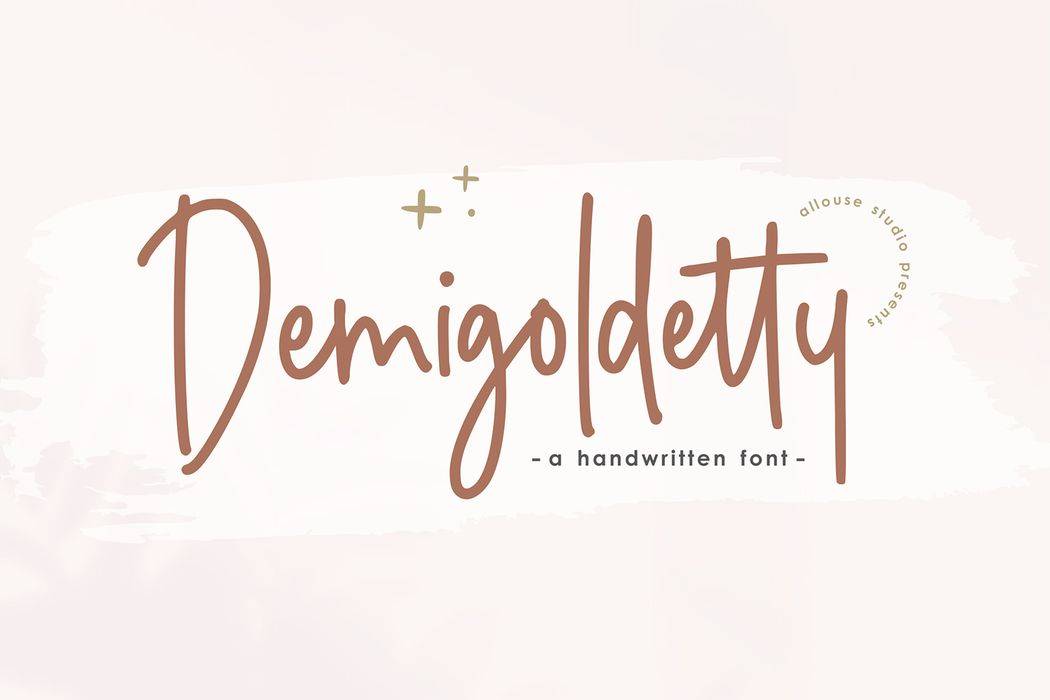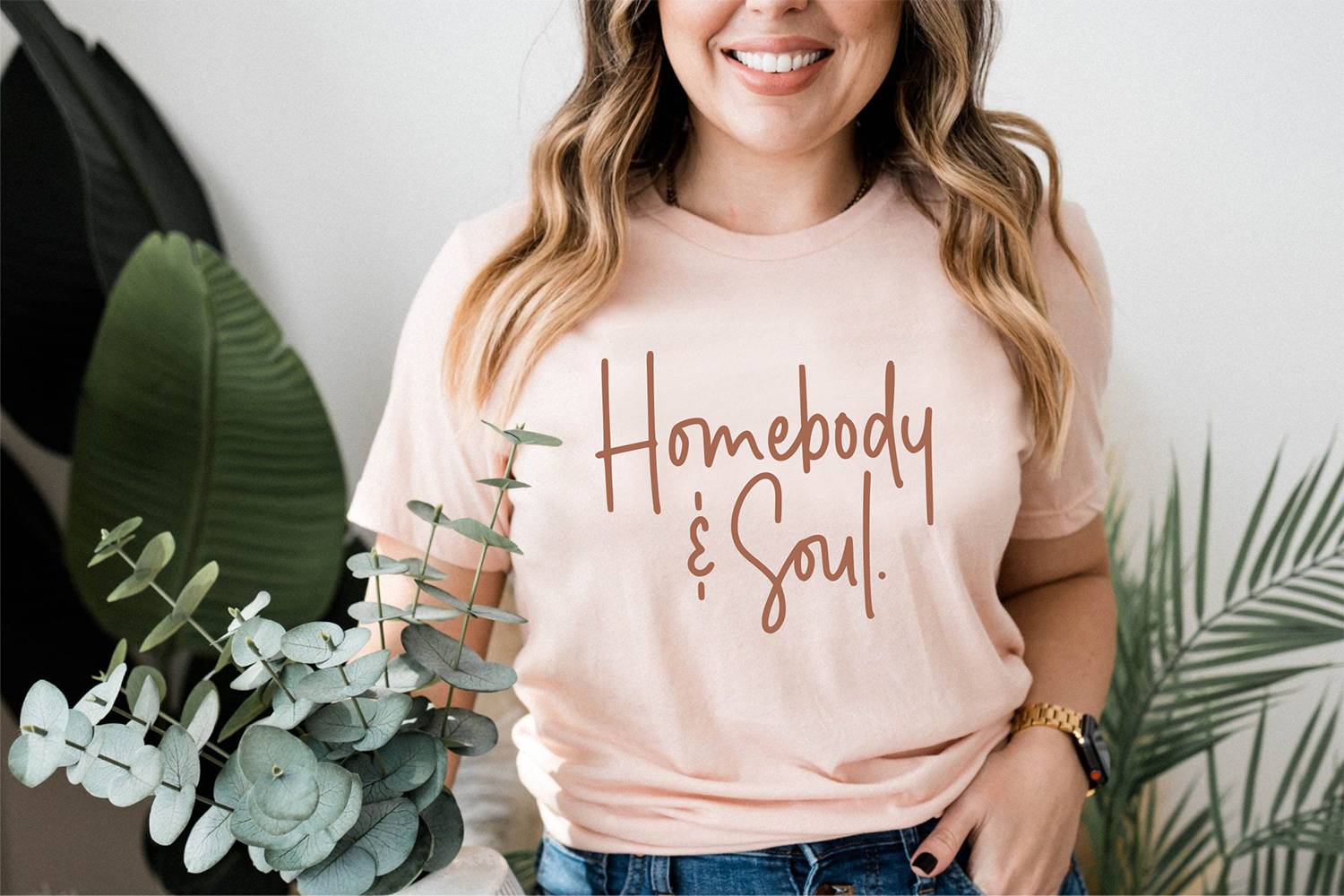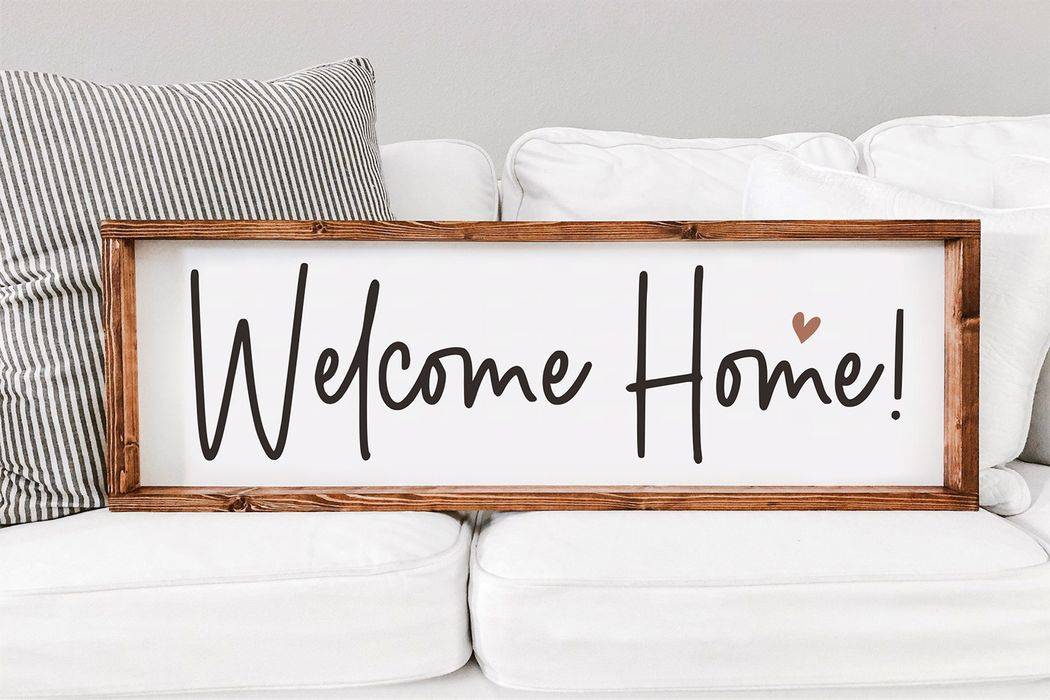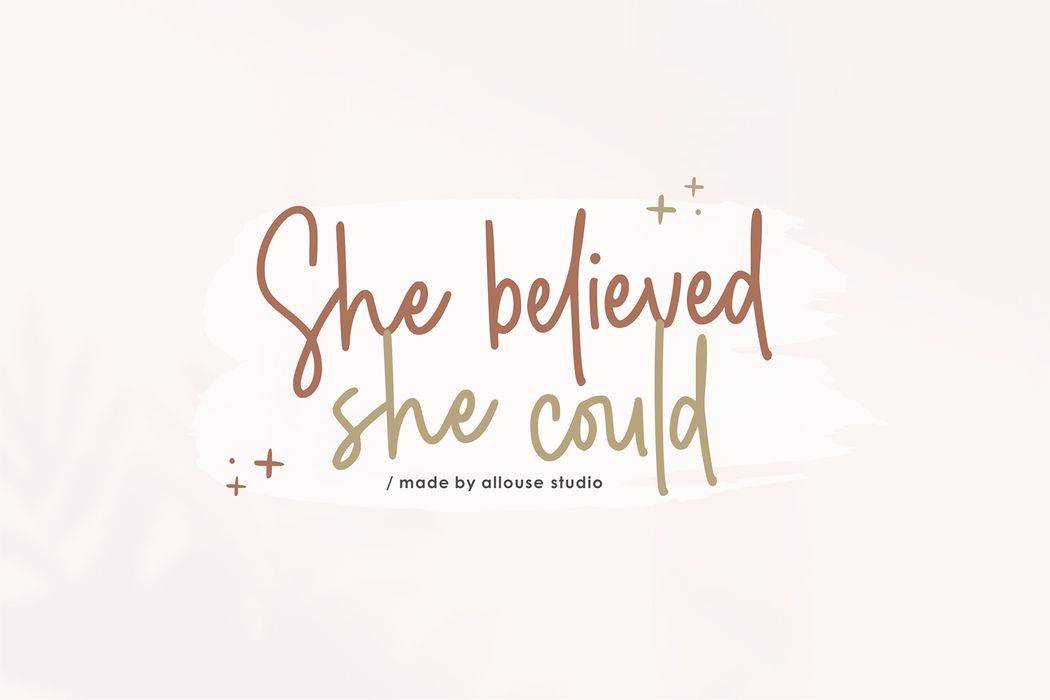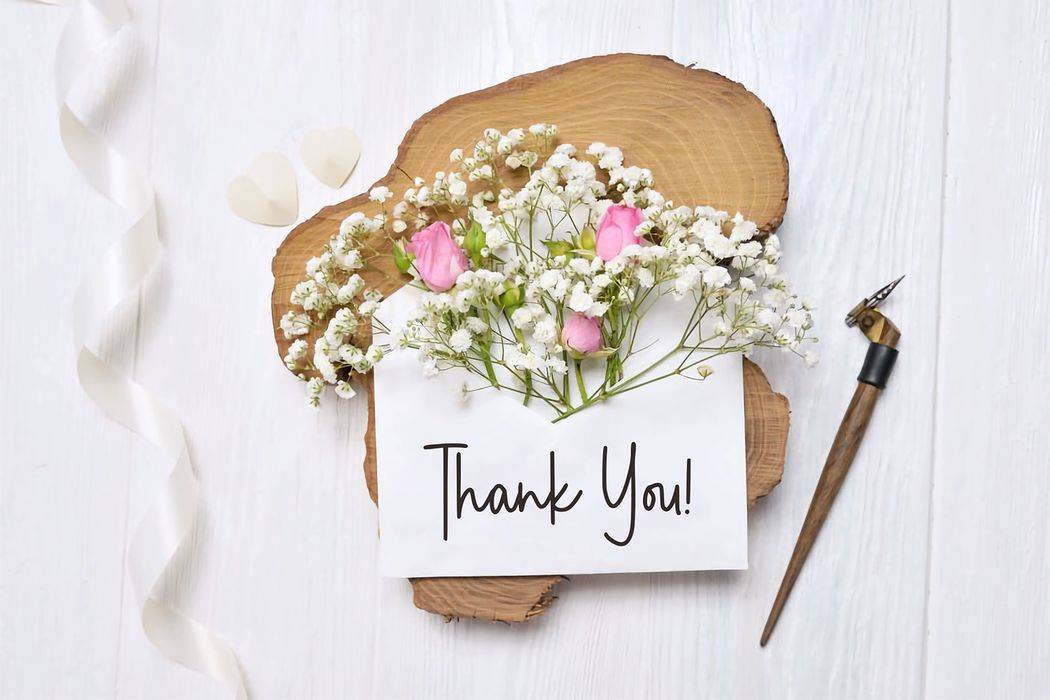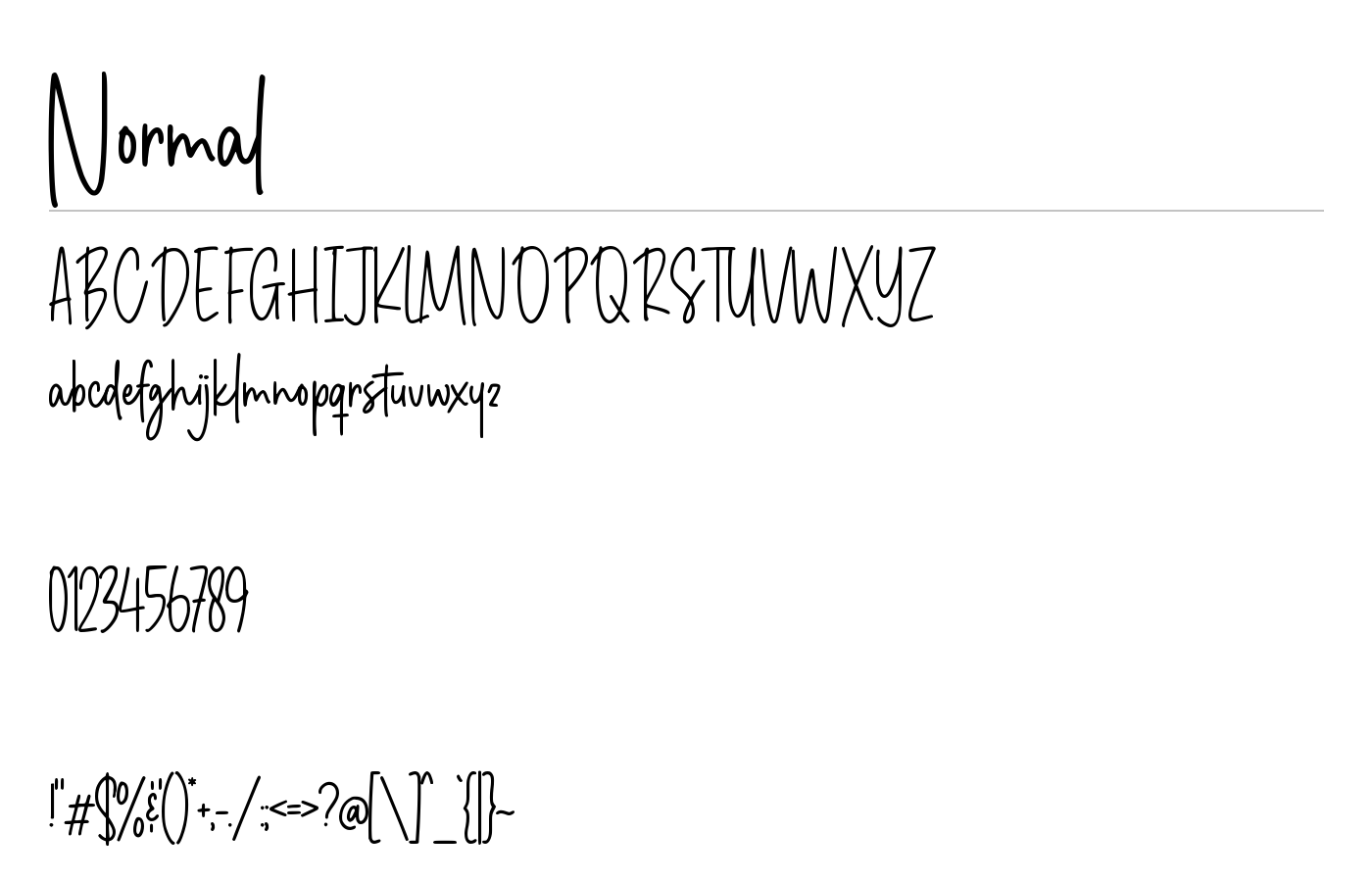
Demigoldetty is a playful, tall, and narrow handwritten sans serif font with a casual and friendly vibe. Its thin, uneven strokes and tall x-height give it an approachable, informal feel, making it perfect for creative projects, personal branding, or playful editorial designs where a unique yet legible style is desired. This font works well in headlines, logos, and other display uses that benefit from its distinctive hand-drawn personality.
Demigoldetty Font
About Demigoldetty Font